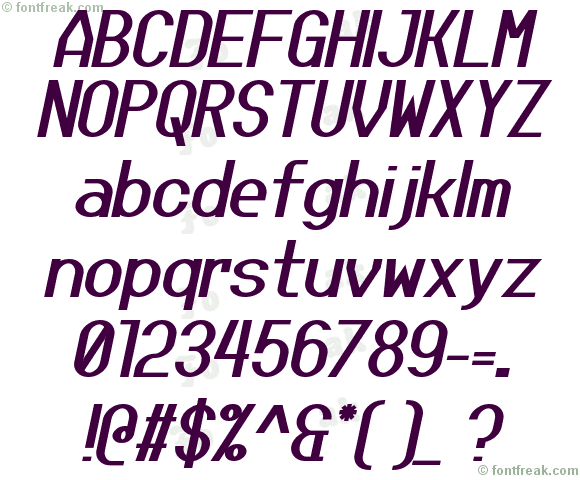
Jupiteroid Bold Italic
Jupiteroid Italic
Jupiteroid Regular
Jupiteroid Light Italic
Jupiteroid Light
Jupiteroid Bold
Jupiteroid Bold Italic by GGBot is a striking display font that effortlessly combines modern aesthetics with a touch of elegance. As part of the Jupiteroid family, this font is categorized as a sans-serif typeface, characterized by its clean lines and bold strokes. The italic style introduces a dynamic slant that adds a sense of motion and sophistication, making it an ideal choice for various design projects.
Visually, Jupiteroid Bold Italic features a robust stroke weight that provides a commanding presence, while the subtle contrast in letterforms enhances its readability. The spacing between characters is thoughtfully designed to maintain clarity, even at larger sizes. Its emphasis on boldness, combined with the italicized slant, creates an eye-catching effect that draws attention without overwhelming the viewer.